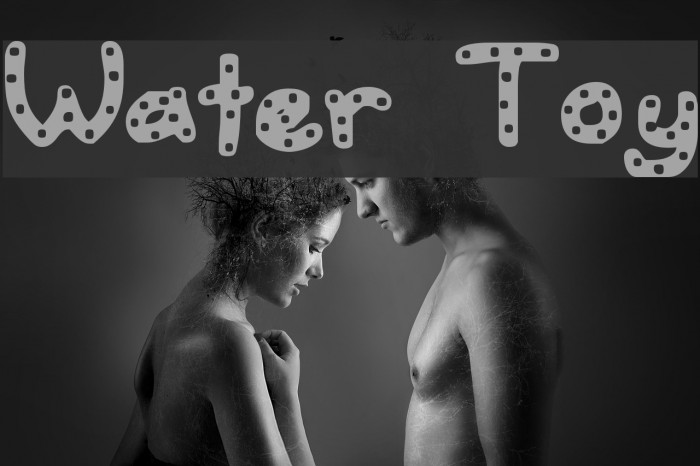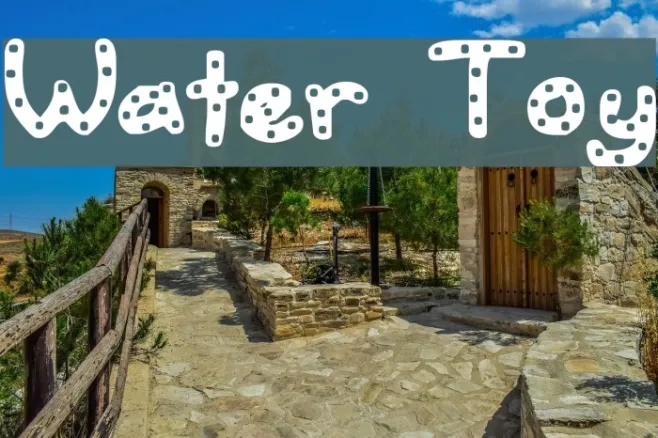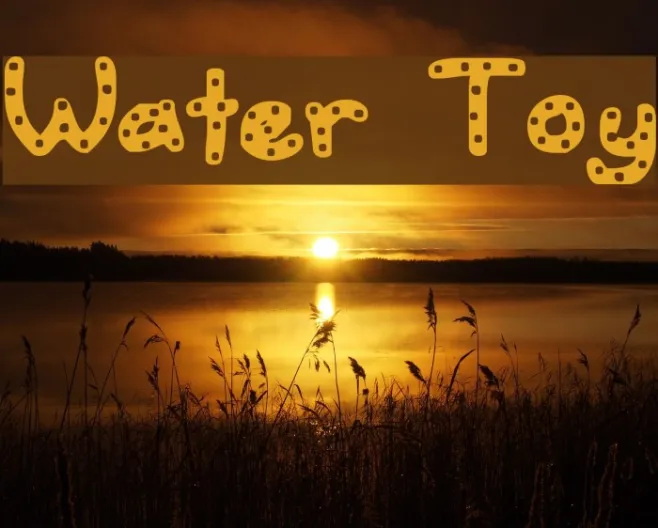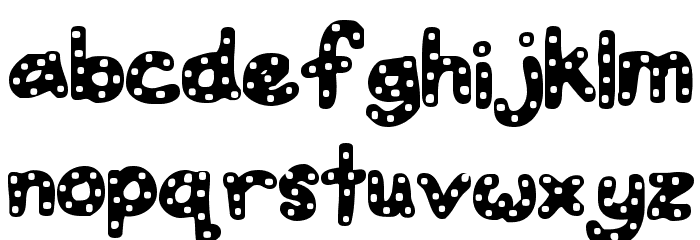
Water Toy Font
This playful and whimsical font features bold, rounded letters with a unique polka dot pattern throughout each character. The design is reminiscent of bubbles or water droplets, giving it a fun and lively appearance. The uppercase and lowercase letters maintain a consistent style, with each character exhibiting a sense of movement and fluidity. The font is highly decorative, making it ideal for projects that require a touch of creativity and playfulness. Its distinct style ensures that it stands out, making it suitable for eye-catching designs.
A playful, polka-dotted font with a bubbly, whimsical style.
• Proposed Projects: Ideal for children's books, toy packaging, party invitations, and playful branding.
• Category: Decorative/Display
• Overall Style: Playful, Whimsical, Decorative
• Use Case: Headlines, Logos, Posters